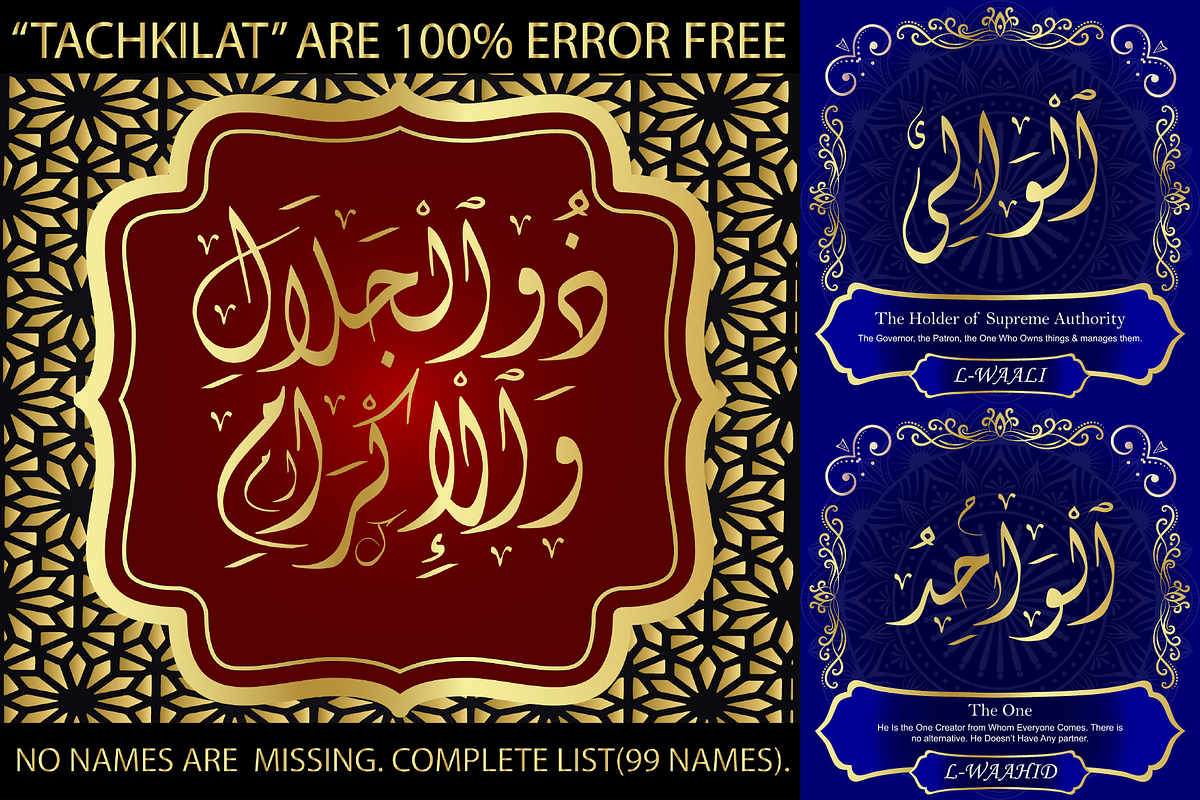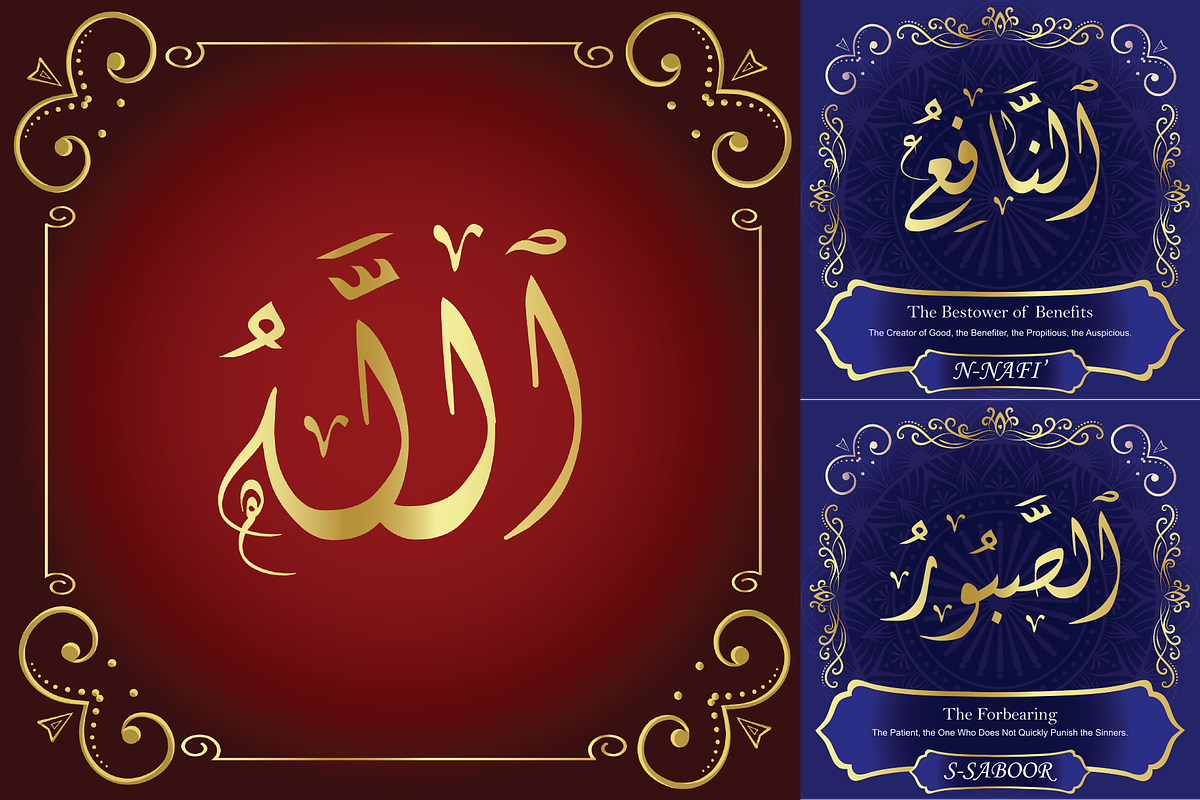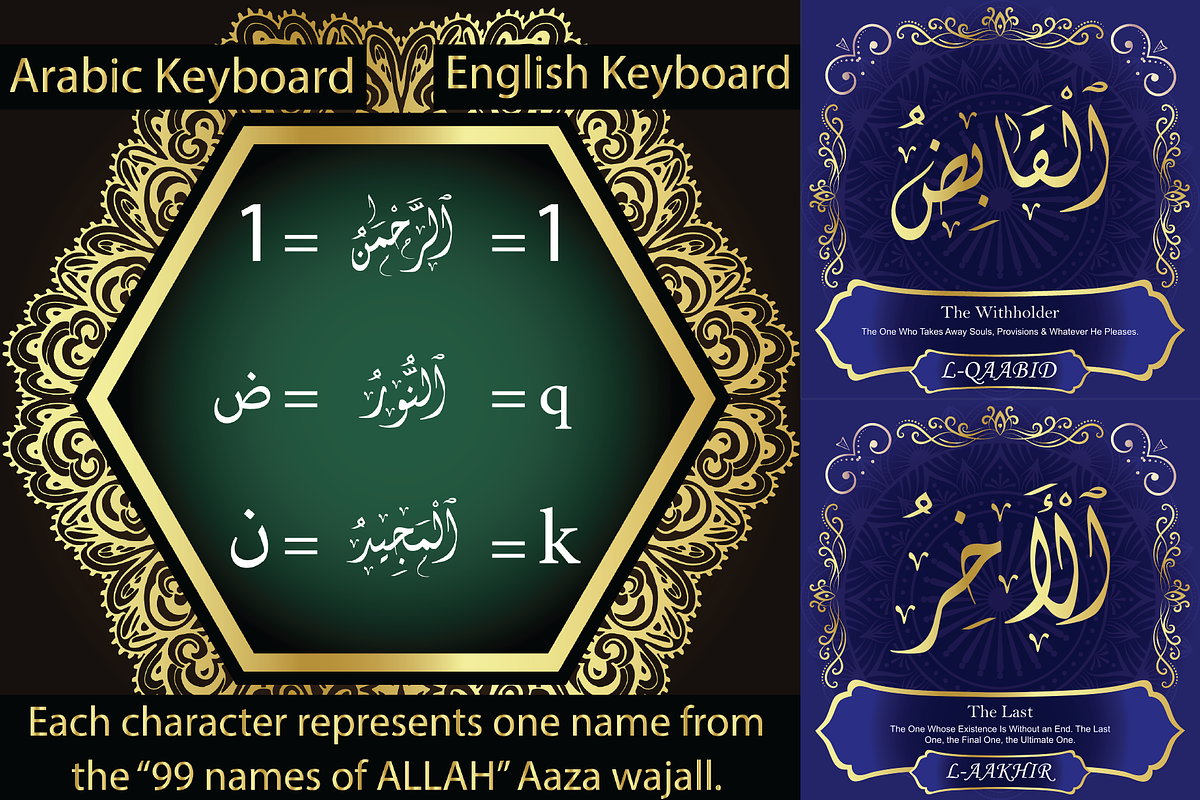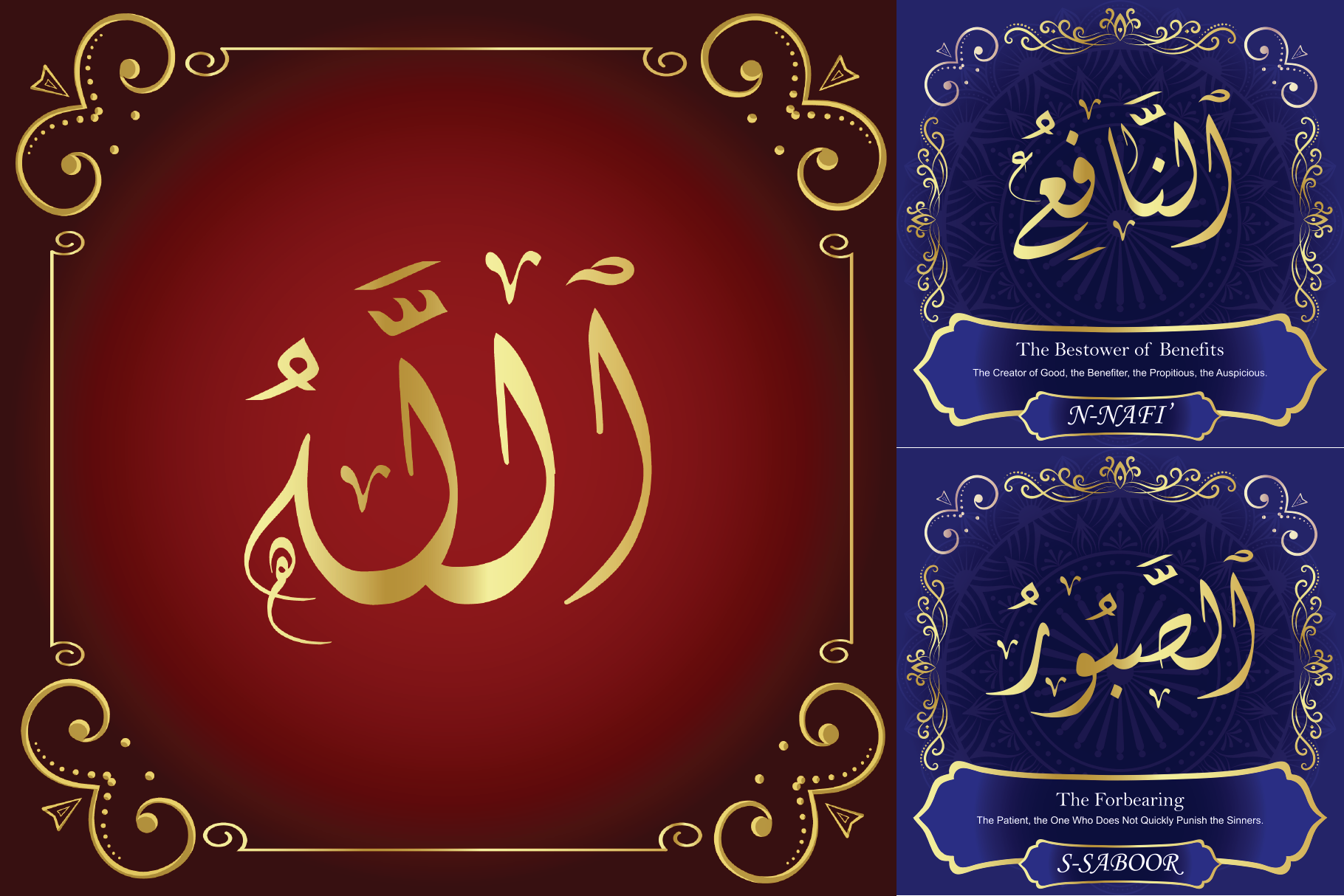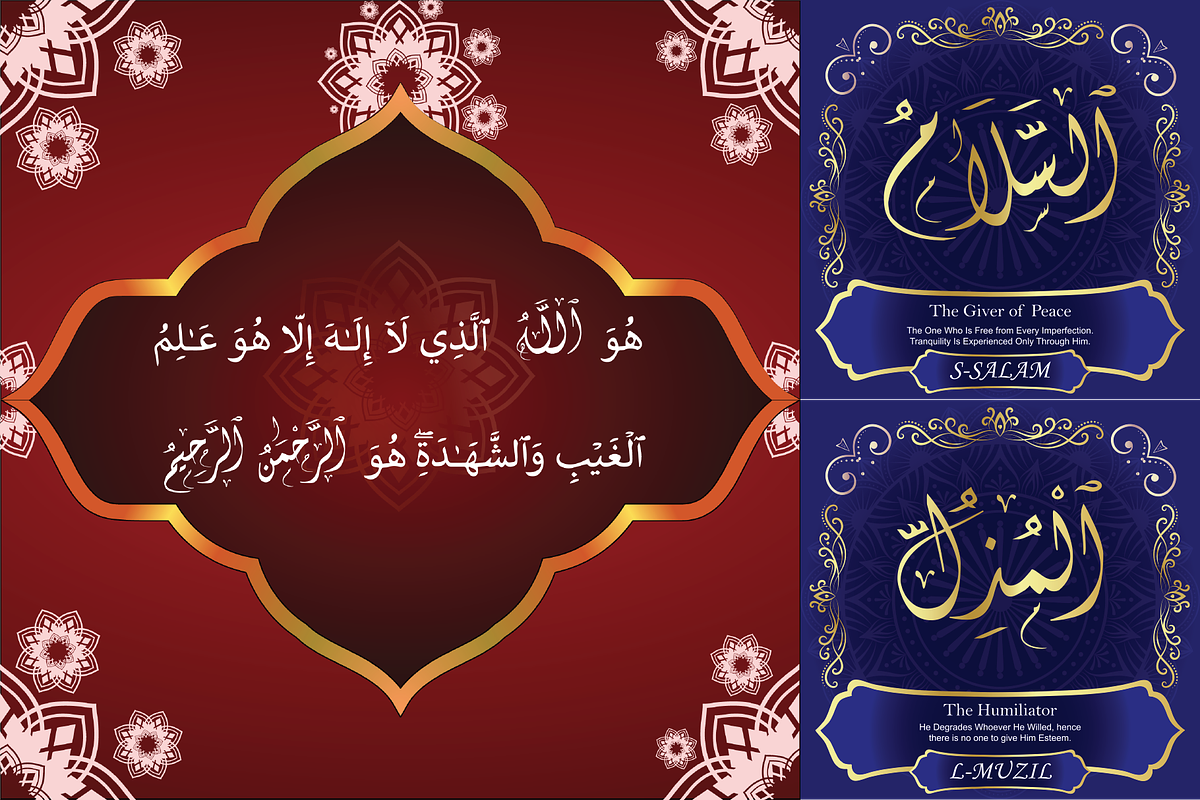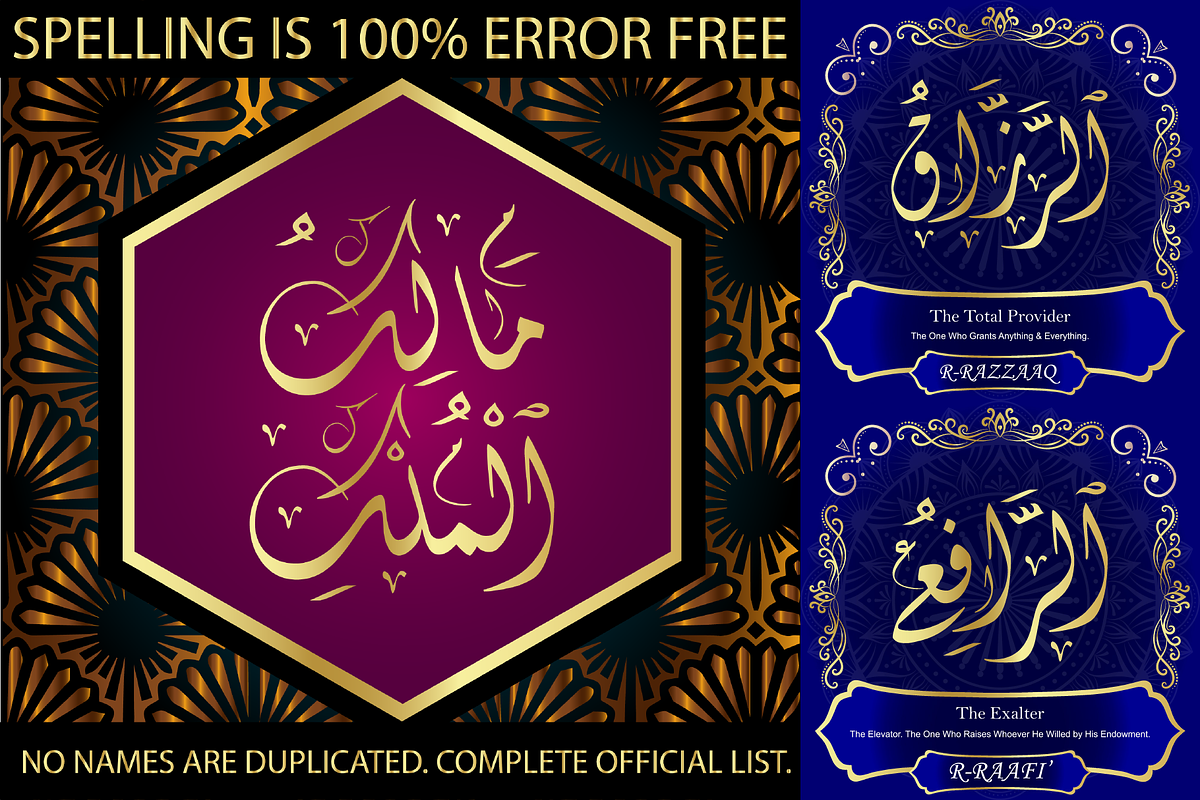
99 Names of ALLAH "Spiral" Font
We have transformed the “99 names of ALLAH” into a font. That means each key on your keyboard represents 1 of the 99 names of ALLAH Aaza Wajal. The fonts work with both the English and Arabic Keyboards.
We call this Calligraphy "Spiral" because of the spiral like design. The first "Alef" has a "hamzit wasel", this indicates that you can pronounce the names both ways, "AR-RAHMAAN" or "R-RAHMAN". (in the zip file you will find a pdf file explaining the differences in the "harakat", pronunciation and spelling according to the Holy Quran). The "Ye" doesn't have 2 dots at the end of a name, instead we chose to include a small "ye" on the letter "ye". Also, we used the traditional "soukoun" instead of the Quranic "soukoun". Decorative letters used in this calligraphy: "Mim, Aain, Sin, HHe, He, Kaf, Alef & Ye".
- Designers: The very small details in the names does not affect the quality. Rest assured it is flawless.
The MOST IMPORTANT THING about this list is that all the names are 100% ERROR FREE, and you can USE THEM WITH YOUR EYES CLOSED. All the “Tachkilat” are 100% ERROR FREE, all the "Spelling" is 100% ERROR FREE, and they all have been written in accordance with the Holy Quran. No names are missing and no names are duplicated. The list is complete "99 names +1". The +1 is the name “ALLAH” 'Aza wajal.
Another important thing is how we use the decorative letters. In every font you will see small decorative letters, these letters are used only in accordance with their respective letters to indicate pronunciation & we don't include them randomly. That means "mim" on top or below the letter "mim", "sin" on top or below the letter "sin", and so on and so forth.